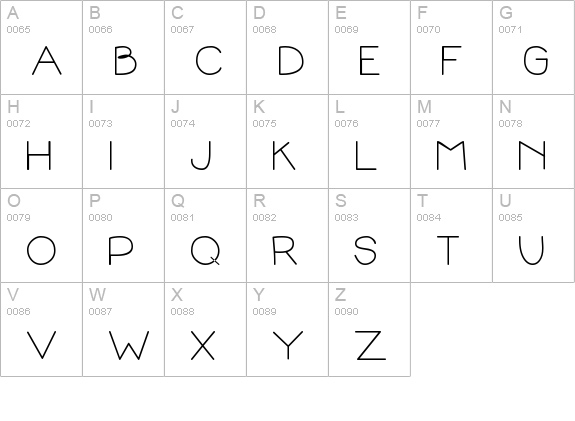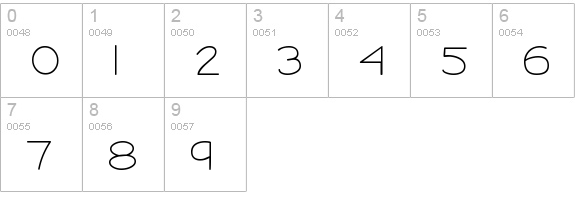
CK Primary Font Details
Introducing CK Primary font, a modern and versatile typeface designed to bring a fresh and friendly look to your projects. With its clean lines and playful curves, CK Primary is perfect for a wide range of design applications, from branding to packaging to social media graphics. This font is free to use and is available for download at FontsMarket.com, making it easily accessible for designers looking to add a touch of personality to their work. Whether you're creating a logo for a new business or designing a poster for an event, CK Primary is sure to make your text stand out. With its wide range of weights and styles, CK Primary offers plenty of flexibility for all your design needs. So why wait? Download CK Primary today and start adding a touch of charm to your projects.